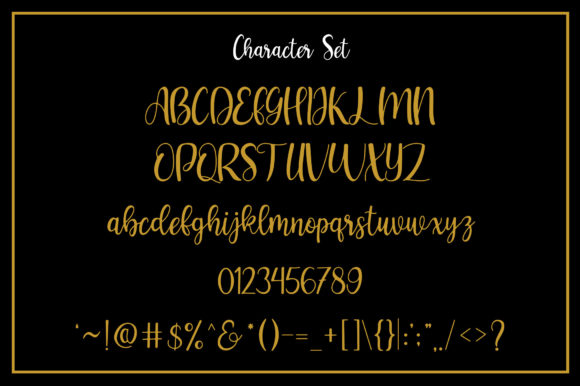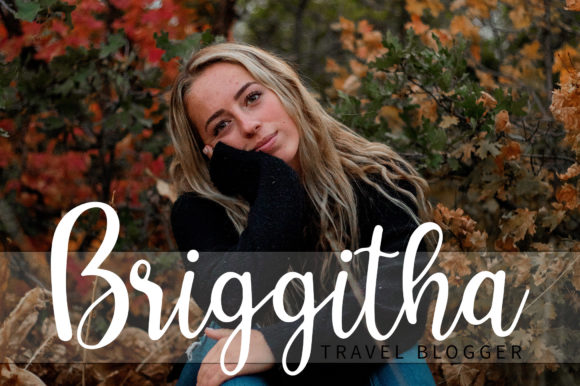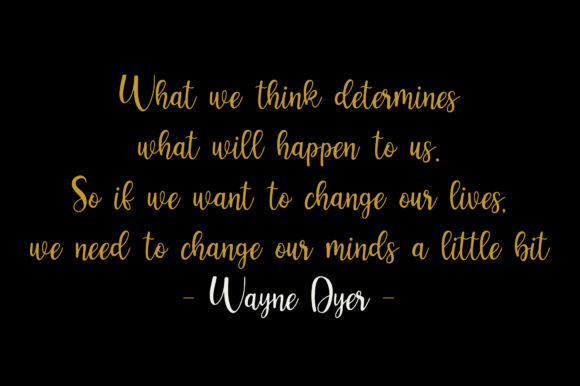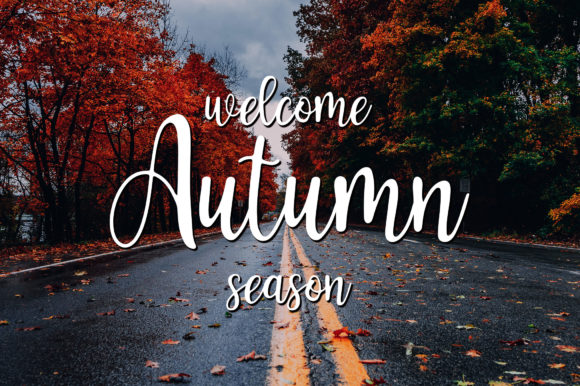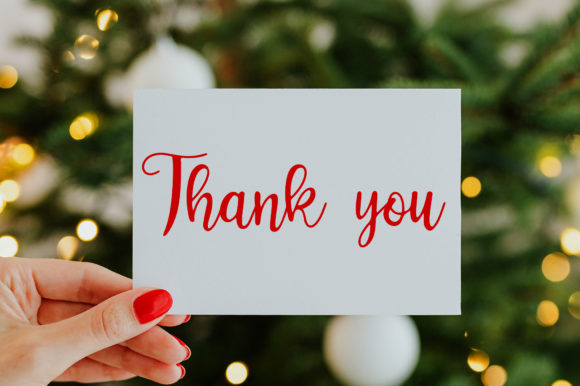
The Magic of Autumn Font: Elevate Your Designs with Elegance
I’ll never forget the time I was working on a wedding invitation project, and my client asked for a font that exuded elegance and sophistication. I scoured the internet, tried out countless fonts, but nothing seemed quite right. That was until I stumbled upon Autumn Font. It was like a breath of fresh air – the perfect blend of style and elegance that instantly elevated my design. In this article, I’ll share with you why Autumn Font has become a staple in my design toolkit and how you can make the most of it in your own projects.
An Honest Review of Autumn Font
- ✨ Elegant and stylish: Autumn Font is a beautifully crafted script font that adds a touch of sophistication to any design.
- ✅ Versatile: It’s perfect for a wide range of applications, from wedding invitations and thank you cards to quotes, greeting cards, logos, and business cards.
- 💫 Handwritten touch: The font’s handwritten feel adds a personal and emotional touch to your designs, making them more relatable and engaging.
While Autumn Font is an excellent choice for many designs, there are a few things to keep in mind:
- ⚠️ Legibility at small sizes: Like many script fonts, Autumn Font can be a bit tricky to read at very small sizes. It’s best used at larger sizes, such as 24px or above.
- 🤔 Pairing with other fonts: While Autumn Font is beautiful on its own, it can be a bit challenging to pair with other fonts. Look for fonts with a similar feel or a bold, contrasting font to create visual interest.
The Story Behind Autumn Font
Autumn Font was designed by a talented type designer who wanted to capture the essence of the autumn season in a font. Inspired by the changing leaves, cozy warmth, and rustic charm of the season, Autumn Font is a beautiful reflection of the designer’s passion for typography and nature.
| What is Autumn Font best used for? | Autumn Font is perfect for designs that require a touch of elegance and sophistication, such as wedding invitations, thank you cards, quotes, greeting cards, logos, and business cards. |
| Is Autumn Font easy to read? | Autumn Font is generally easy to read, but like many script fonts, it can be a bit tricky to read at very small sizes. It’s best used at larger sizes, such as 24px or above. |